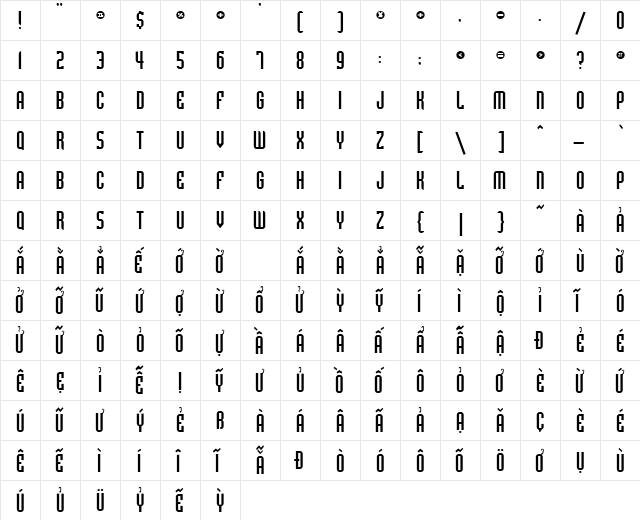
VPS Hoang Sa Hoa Regular Font Preview
VPS Hoang Sa Hoa Regular
Design Context for VPS Hoang Sa Hoa Typeface
VPS Hoang Sa Hoa is a composed and adaptable typeface that performs quietly and consistently across a wide range of design contexts.